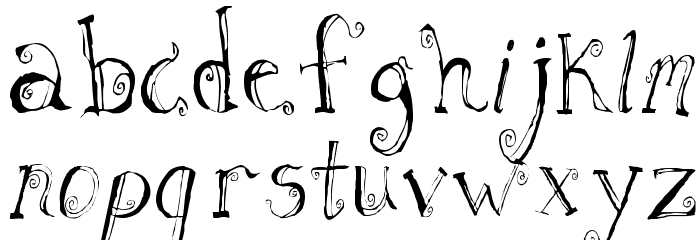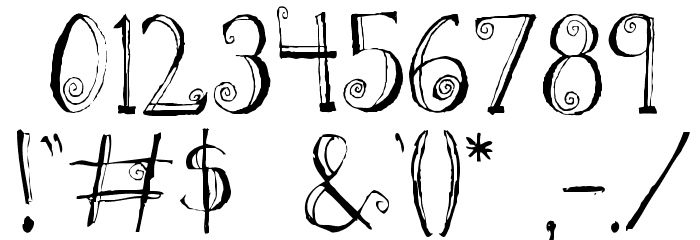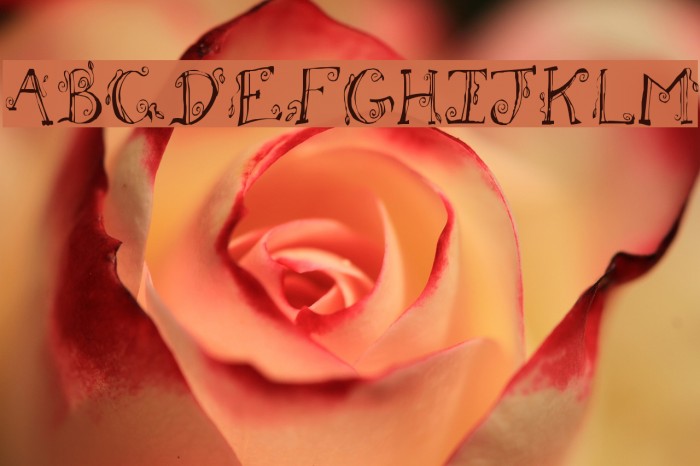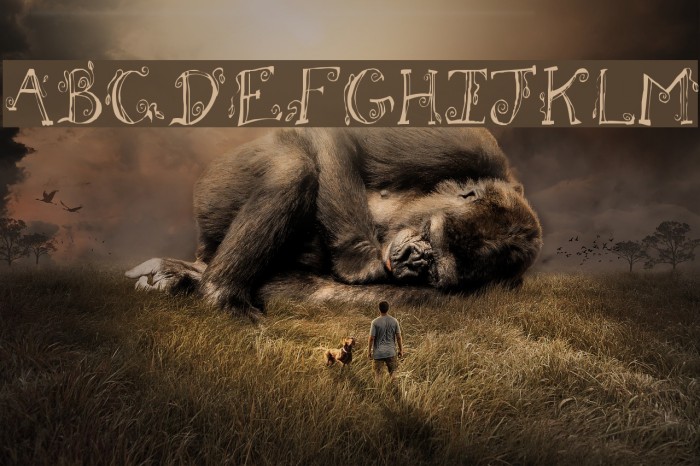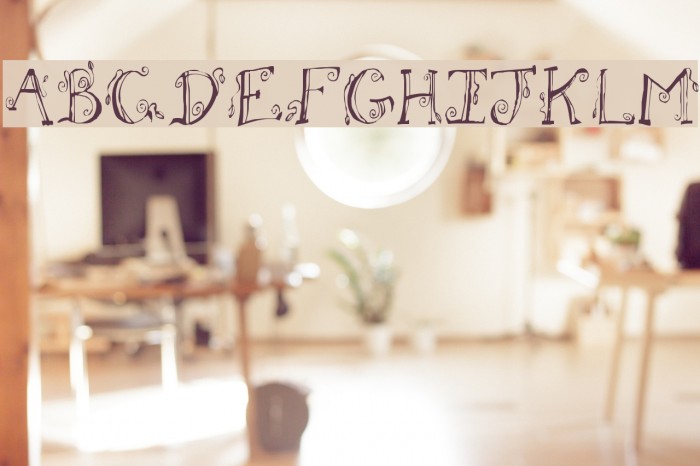
Fh_Letter Font
This whimsical and decorative font features a playful design with intricate swirls and curls integrated into each character. The uppercase letters are bold and eye-catching, while the lowercase letters maintain a consistent style with a slightly more delicate touch. Numbers and special characters follow the same ornate theme, making them stand out with unique embellishments. The font's artistic flair makes it ideal for creative projects that require a touch of elegance and fantasy.
A whimsical, decorative font with intricate swirls and curls.
- Proposed Projects: Perfect for invitations, greeting cards, children's books, and artistic branding projects.
- Contrast: High
- Use Case: Headlines, Logos, Artistic projects